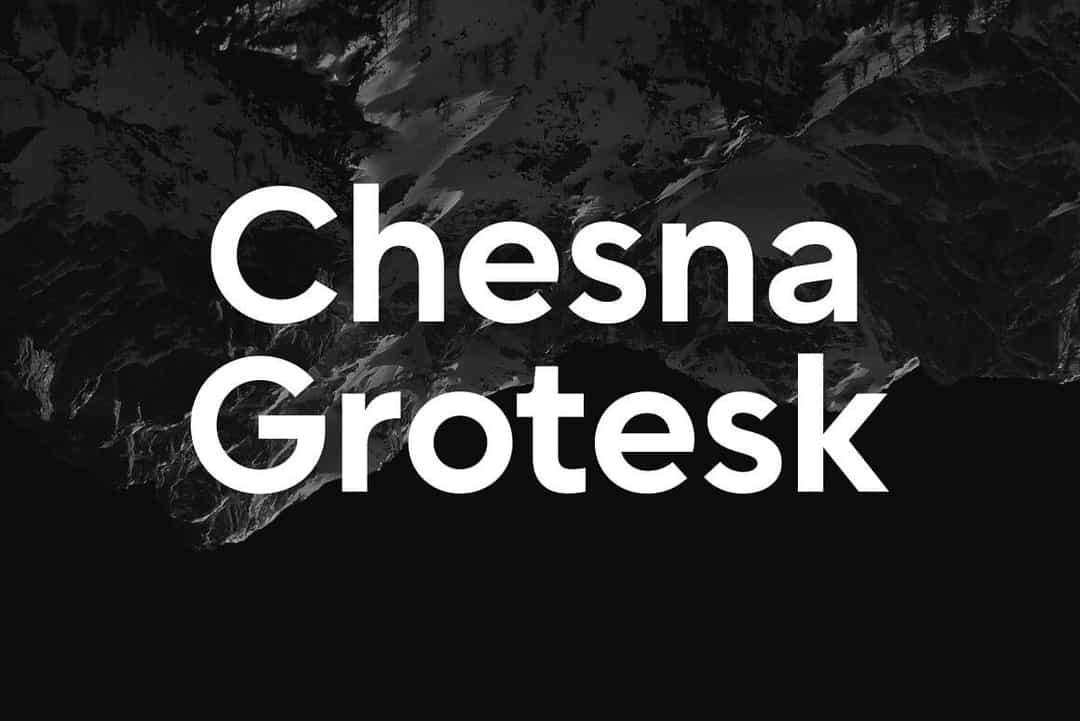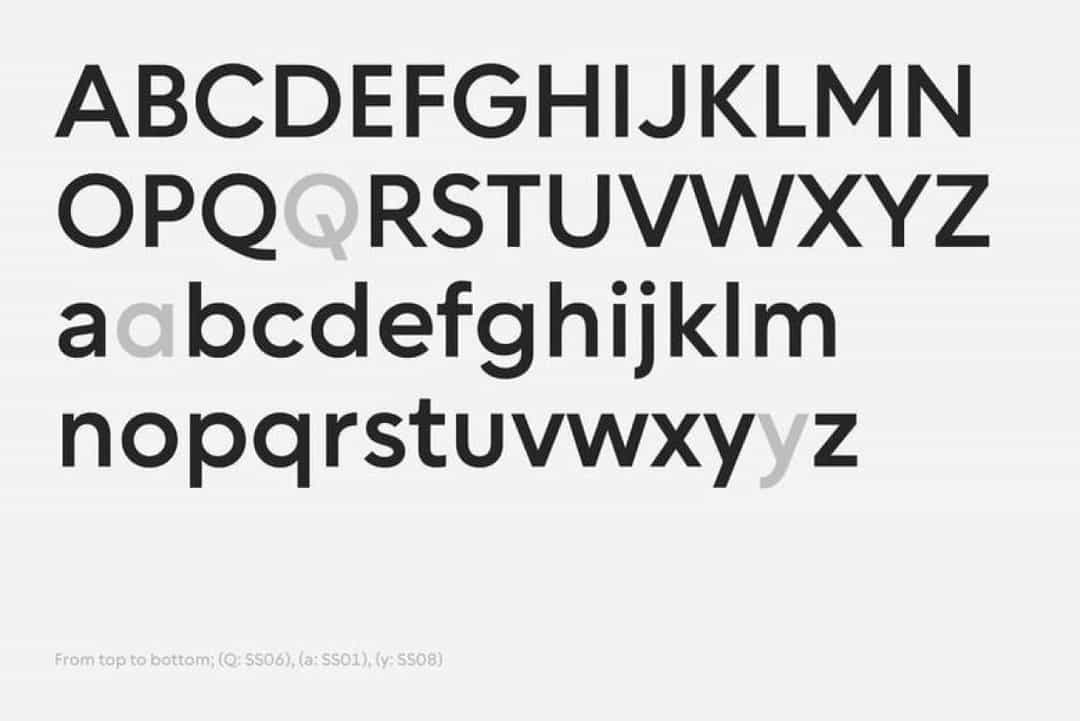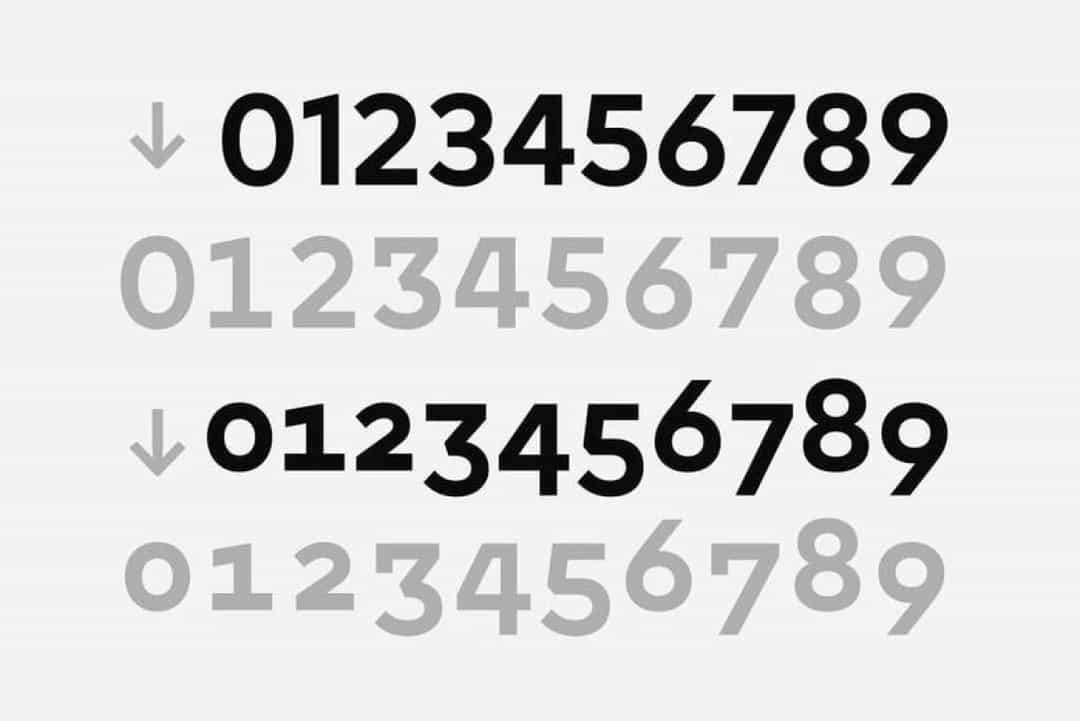
Chesna Grotesk Font Family is an innovative geometric sans serif font designed around a form. Featuring 20 weights with 10 uprights and 10 italics for each weight, Chesna is a fresh take on classic Grotesque typography inspired by Avenir, Futura and Circular fonts.